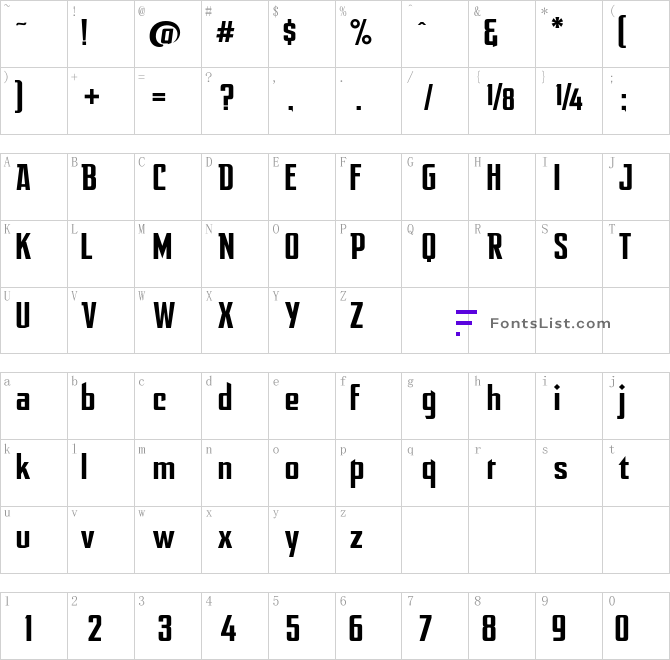
- Font Name:After Disaster
After-Disaster.ttf is a very beautiful artistic font, After-Disaster.ttf is widely used in the design and printing of various books and pictures,After-Disaster.ttf has a strong visual impact,After-Disaster.ttf is a commonly used font in newspapers, magazines and books, and is used in posters, e-commerce Poster design, store design, logo design, font design and other fields.After-Disaster.